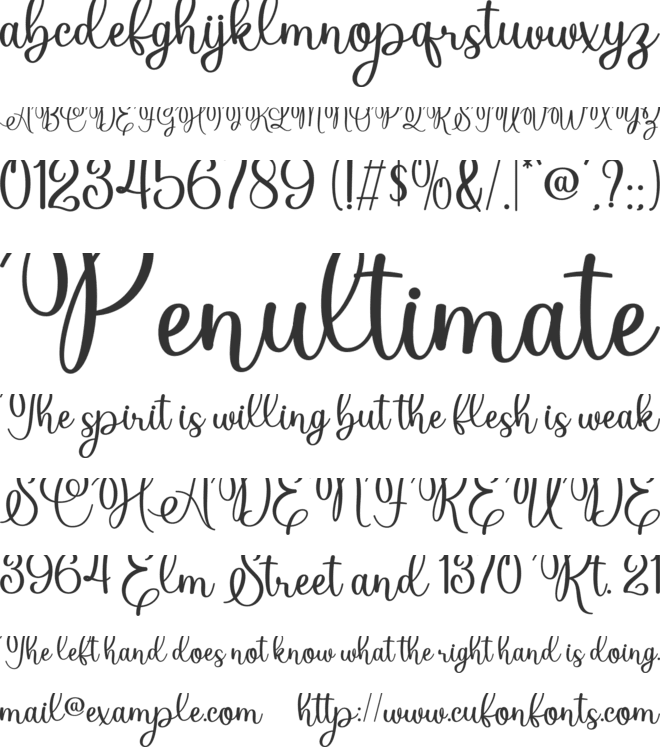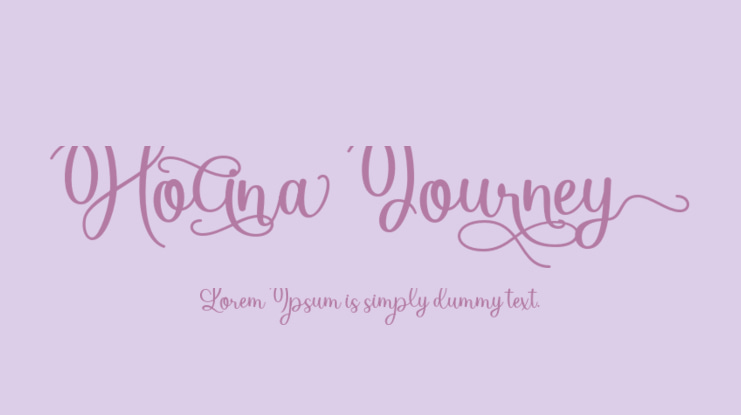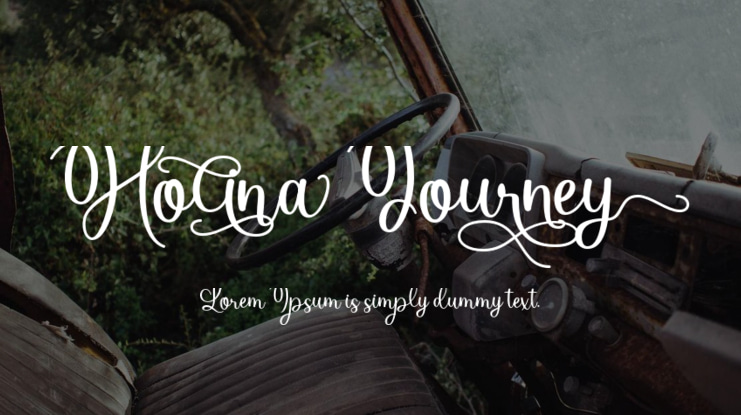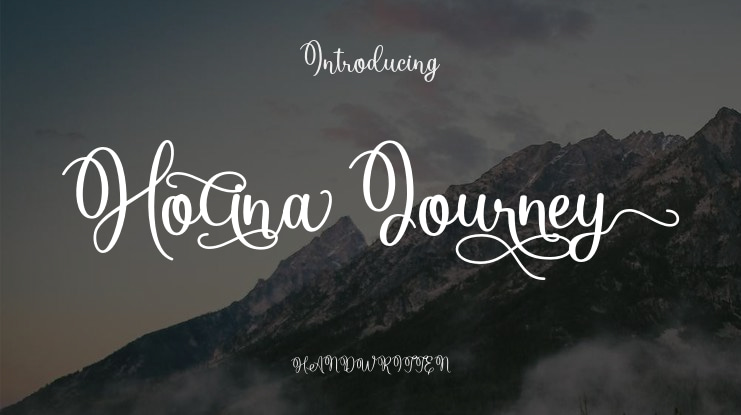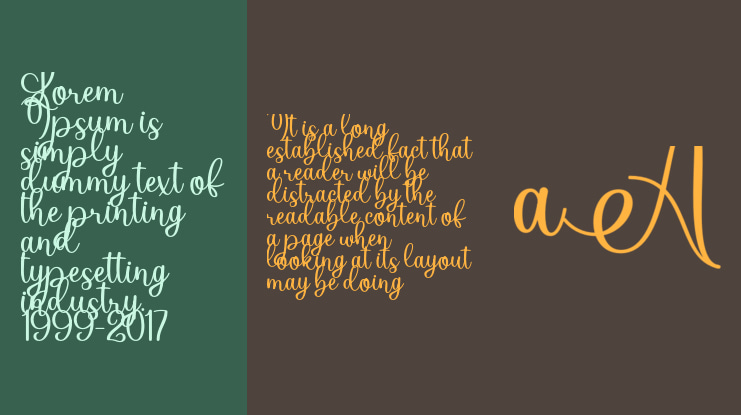
Holina Journey Font
Holina Journey is an exquisite and enchanting font created with a handwritten touch. Its aesthetic appeal makes it perfect for various purposes such as thank you cards, inspiring quotes, elegant wedding invitations, heartfelt greeting cards, professional business cards, captivating logos, and any other designs that crave a touch of personal penmanship.
Additionally, this font is PUA encoded, granting effortless access to all its intricate glyphs and charming swashes!